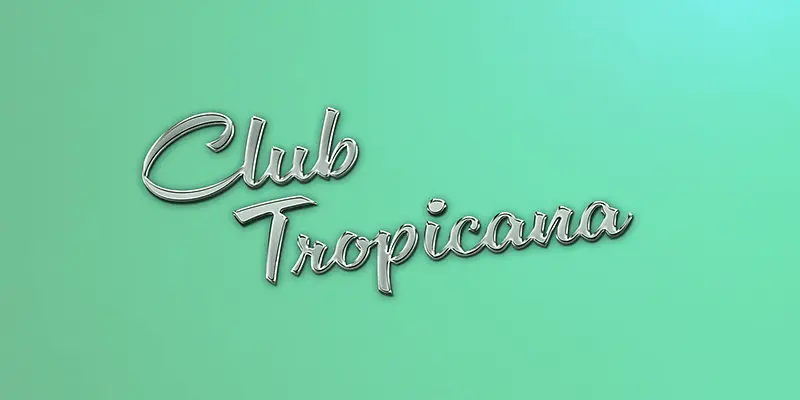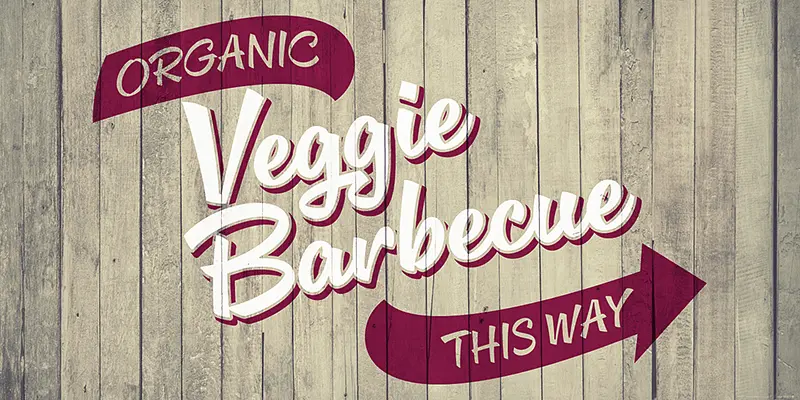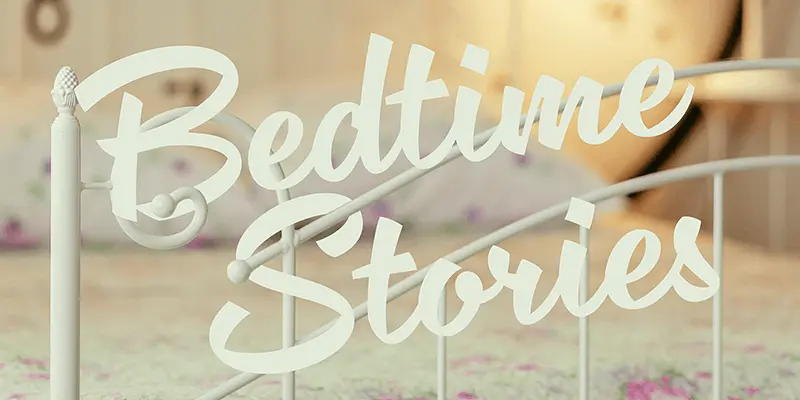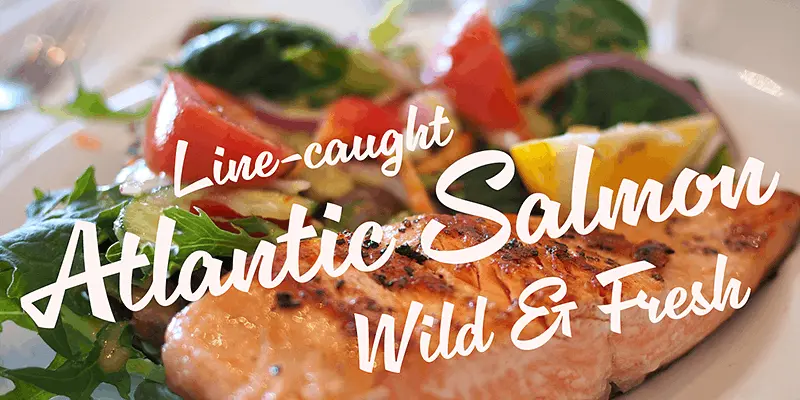
Delfina Script
From Dave Rowland Type
Delfina Script is a cool, connecting script that, with context, can appear retro or modern. Twin to Delfino, the only difference being rounded tittles and punctuation, the shapes almost look like strips of tape, folding and flowing. However, this script is not created by any pen — its forms are built, not painted. Because of this, we could add extra sparkle to the text with structural details like ink traps. Delfina will be at home on screen or in print anywhere you want sparkle in your script.
Designed by Dave Rowland